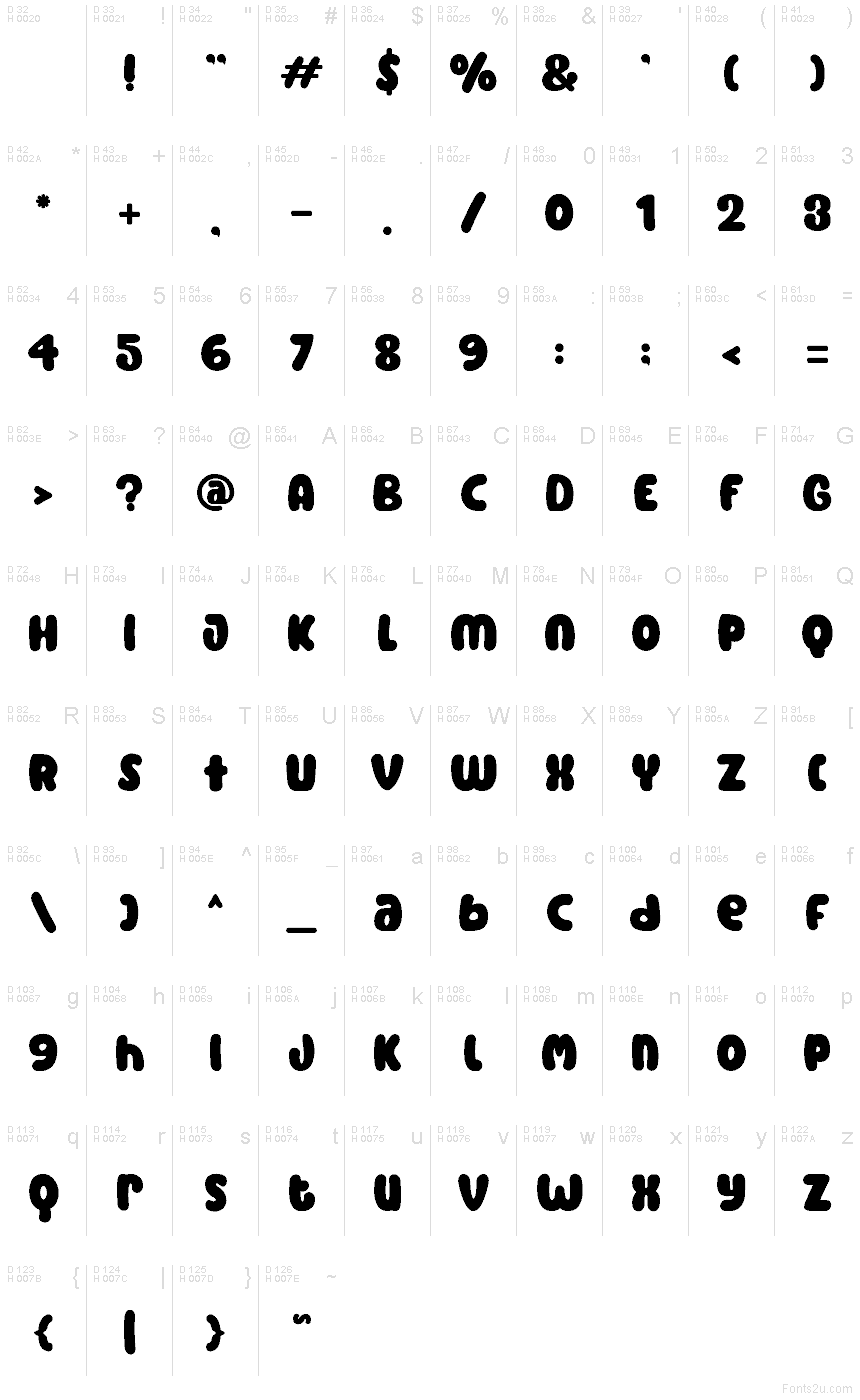
Monster Mash font by PutraCetol Studio is a free decorative font with a bold, quirky, and retro-inspired design. Its cartoonish flair and friendly atmosphere recall mid-20th century display fonts but come with a contemporary edge. This unusual playful style can offer meaningful applications that are simultaneously elegant and casual.
Use Monster Mash for children’s book titles, or Halloween-themed graphic designs like event flyers and party invites. Consider it in logo design projects for all types of small businesses eager to use playfulness as their keyword. It works on packaging or branding stationery items such as notepads, notebooks, pencils, etc. Other uses include posters, greeting cards, t-shirts prints, stickers, labels…